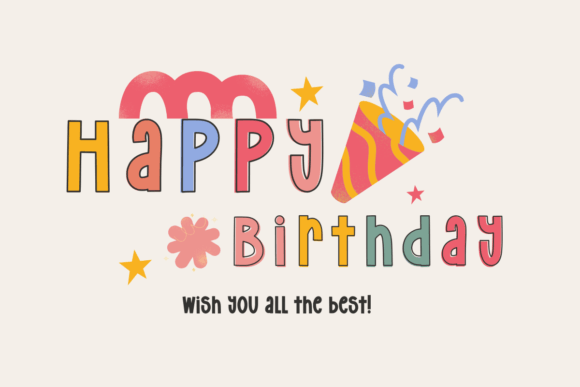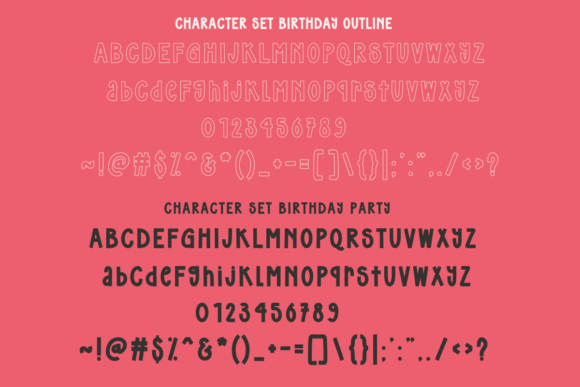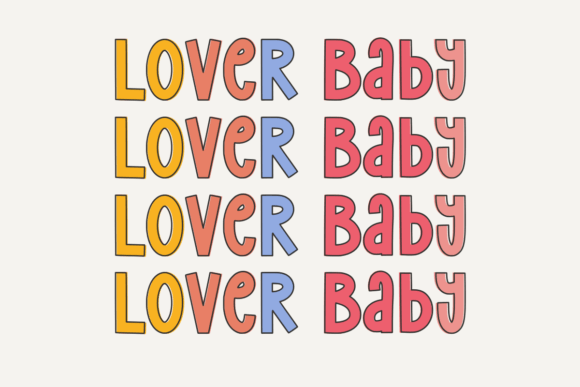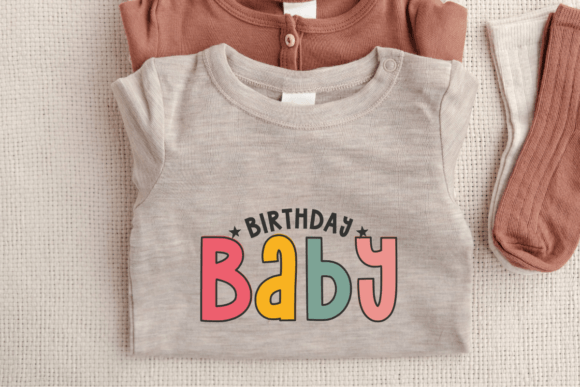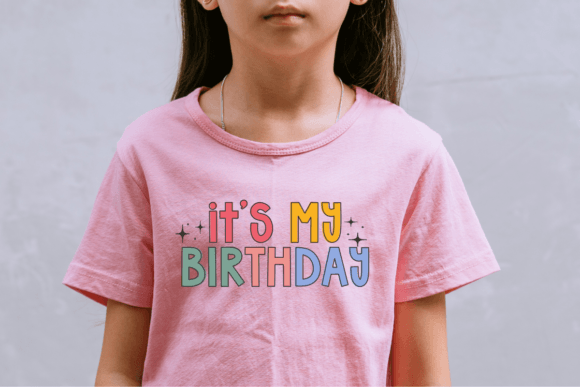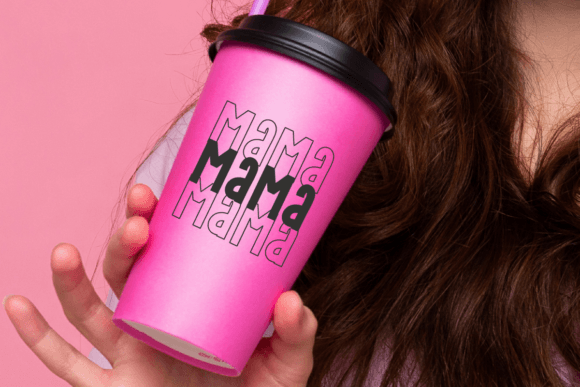
Adding a Pinch of Fun to Your Designs
Have you ever stared at a blank canvas, waiting for inspiration to strike, and suddenly a burst of creativity hits you? That’s exactly what happens when you discover the perfect font to bring your ideas to life. For designers looking to infuse their work with a playful touch, the Birthday Party Font is a game-changer.
This charming font is designed to exude joy and add a relaxed charm to any design environment. Its versatility makes it perfect for a wide range of projects, from children’s t-shirts to home decor items like pillows and mugs. Whether you’re looking to add a fun twist to your designs or create uplifting messages, the Birthday Party Font is the perfect tool to have in your arsenal.
With its ability to transform ordinary objects into fun expressions, the Birthday Party Font is a valuable addition to any designer’s toolkit.
Birthday Party Font Key Features
- Unique Characteristics: The Birthday Party Font features vibrant, colorful designs that resemble party decorations, making it perfect for creating festive and celebratory designs.
- Characters and Glyphs: The font includes a wide range of characters, including uppercase and lowercase letters, numbers, punctuation marks, and special symbols, ensuring that designers have all the tools they need to create engaging and eye-catching designs.
- Font Styles: The Birthday Party Font offers multiple font styles, including bold, italic, and regular, allowing designers to add depth and variety to their designs.
Birthday Party Font Review
Overall, I’d say the Birthday Party Font is a fun, playful addition to any design project. ✨ The bold, colorful letters really do evoke the feeling of a birthday party, which is exactly what you’d want from a font like this. ✨ It’s perfect for creating eye-catching invitations, party decorations, or even social media graphics.
Here are some of the things that work well with the Birthday Party Font:
- ✨ The font is highly customizable, with a range of colors and styles to choose from.
- ✨ It’s easy to use, even for designers who are new to working with bold, colorful fonts.
- ✨ The font is available in a range of weights, from light to bold, so you can use it to create contrast and visual interest.
- ⚠️ The font may be a bit too busy for some designs, so be careful not to overdo it.
- ⚠️ It’s not suitable for formal or professional designs, as it may come across as too playful or childish.
Overall, I’d give the Birthday Party Font 4 out of 5 stars. It’s a fun, versatile font that’s perfect for birthday-themed designs, but may not be suitable for more formal or professional projects.
For the best results, use the Birthday Party Font in conjunction with bright and bold colors to create a fun and festive atmosphere.
Experiment with different font sizes and styles to create visual interest and emphasis.
The Birthday Party Font is perfect for:
Creating invitations and party decorations.
Designing party favors and treats.
Adding a playful touch to social media graphics and posts.